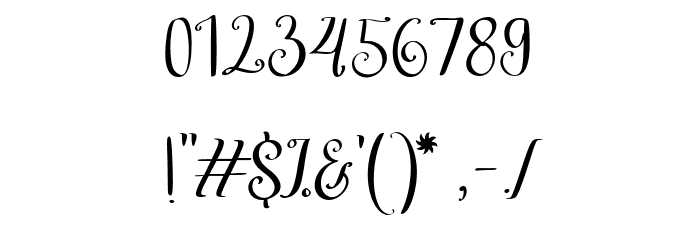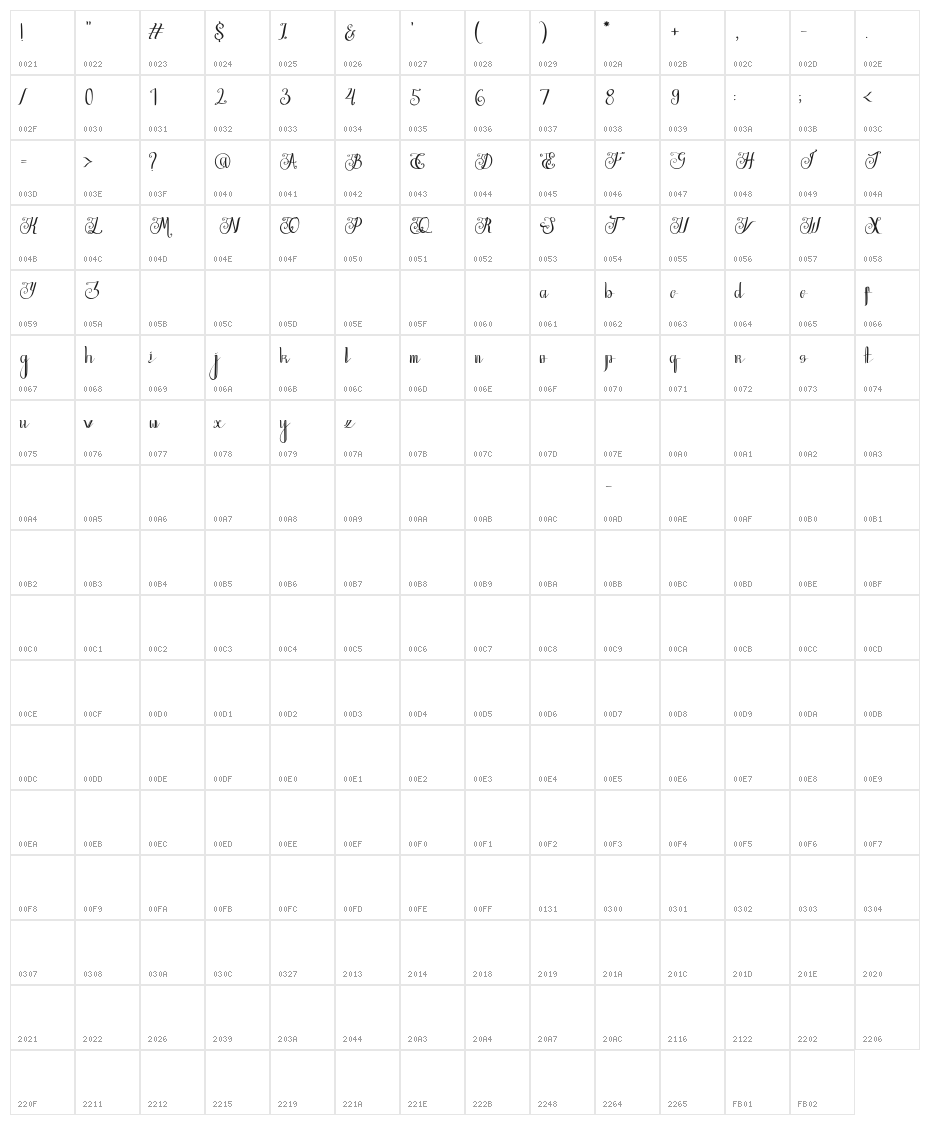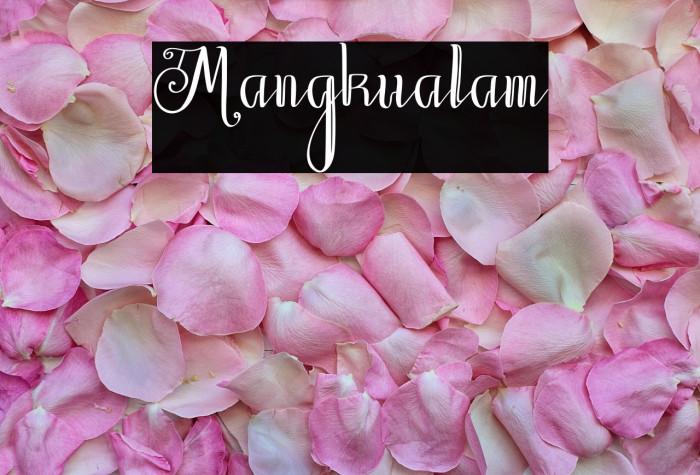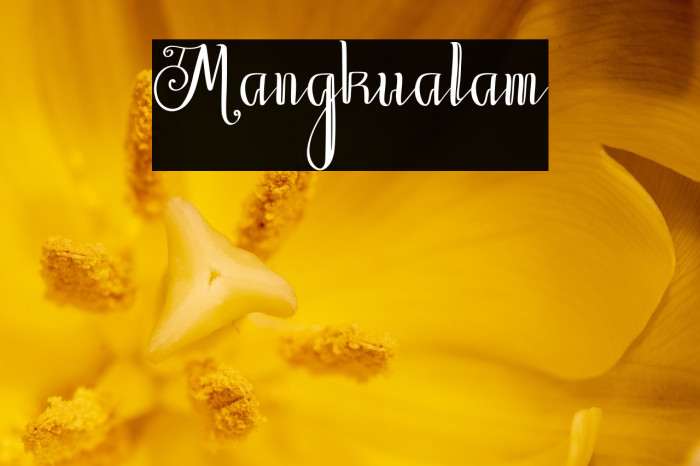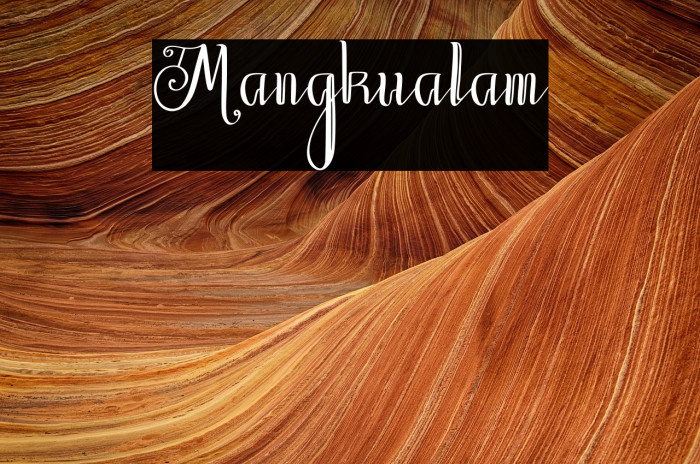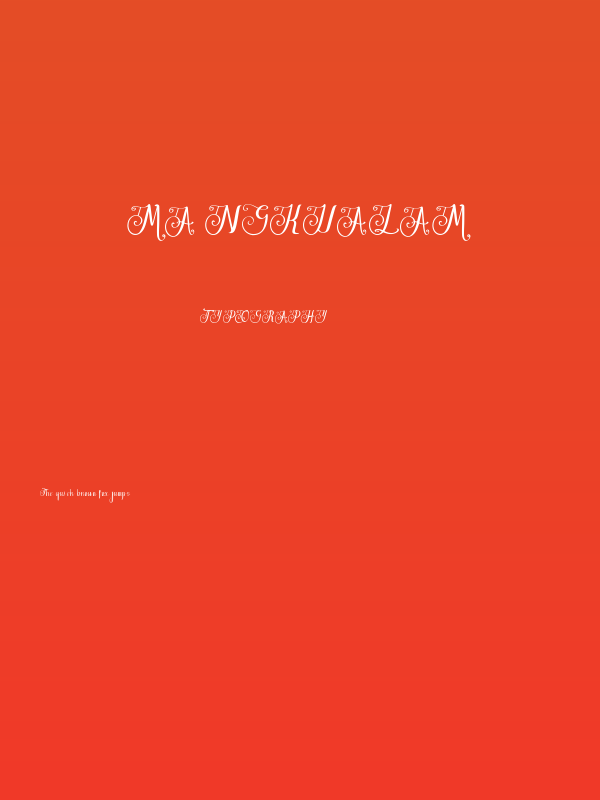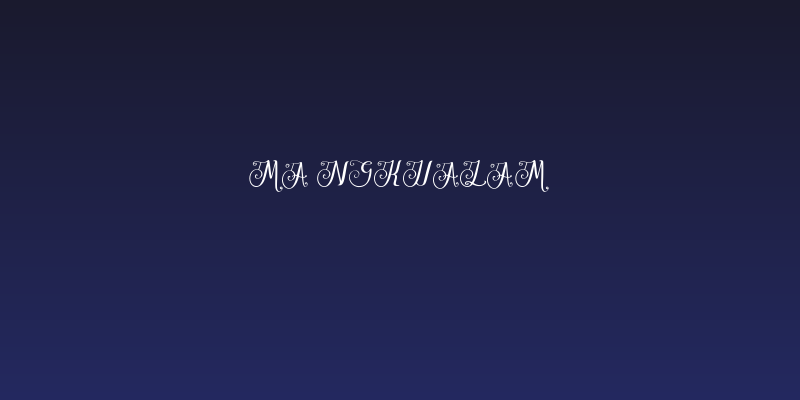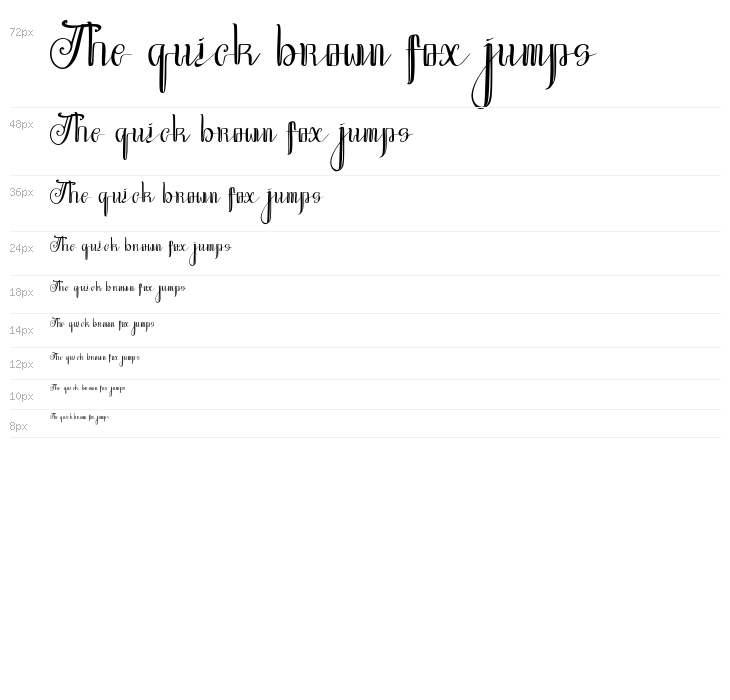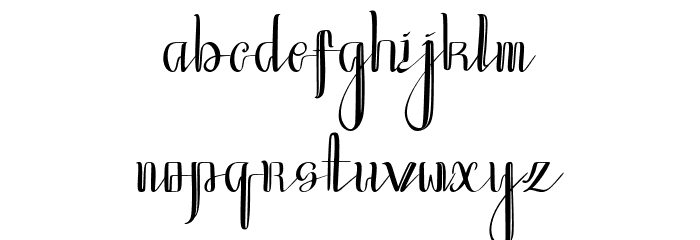
Mangkualam Font
Mangkualam Description
This font features an elegant and decorative script style, characterized by its flowing and intricate letterforms. The uppercase letters are adorned with flourishes and loops, giving them a sophisticated and ornate appearance. The lowercase letters maintain a consistent style with a slightly more restrained use of embellishments, allowing for readability while still maintaining a decorative flair. The numerals are styled to match the overall aesthetic, with subtle curves and unique detailing. Special characters are similarly designed, integrating seamlessly with the rest of the font. This font's artistic and elaborate design makes it suitable for projects that require a touch of elegance and creativity.
| Proposed Projects | Ideal for wedding invitations, greeting cards, branding, and decorative headlines. |